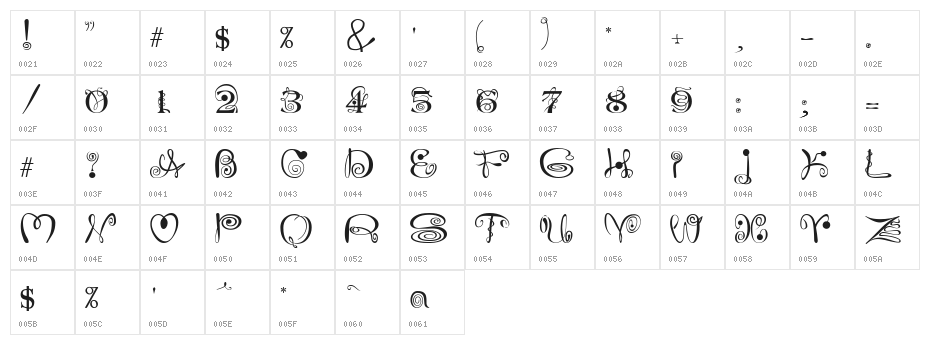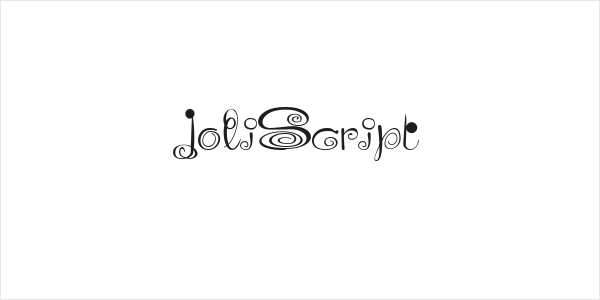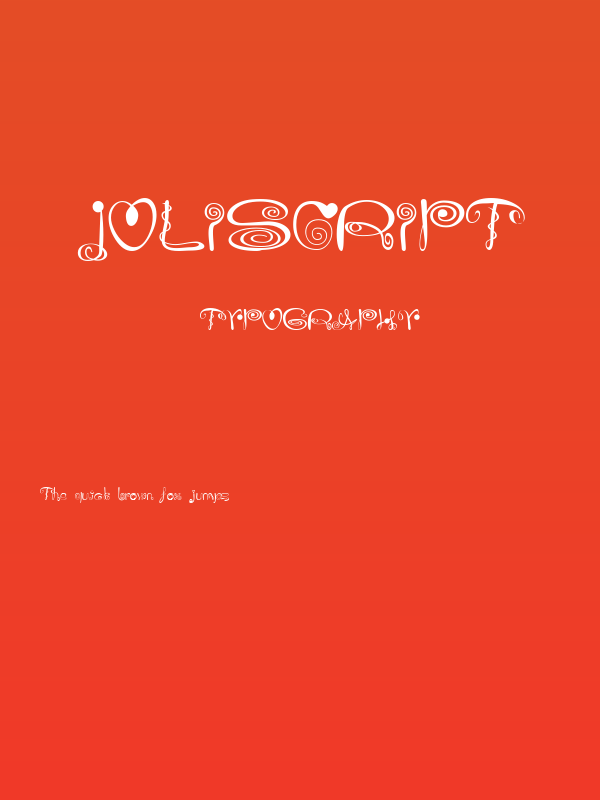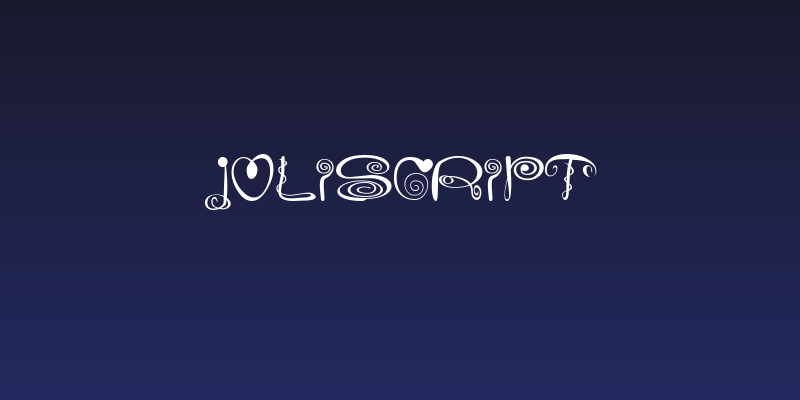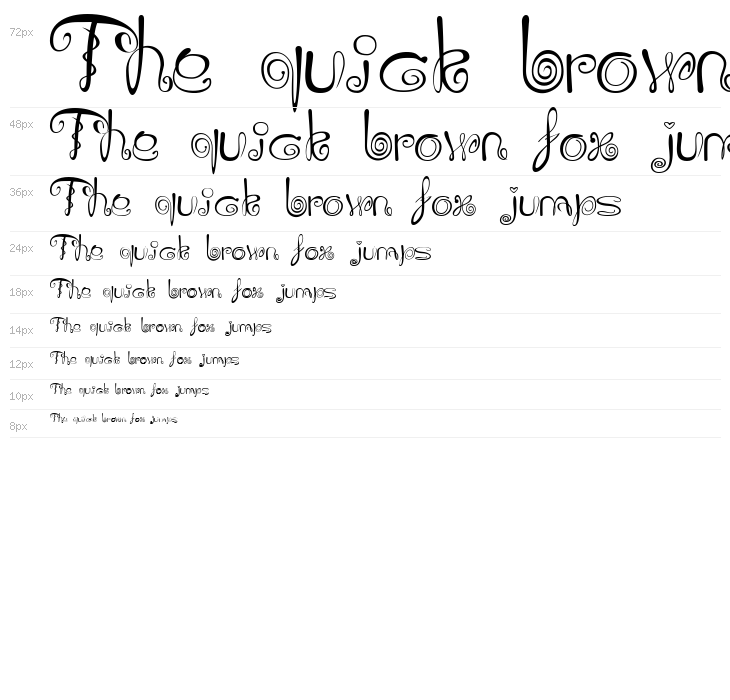
JoliScript Font
JoliScript Description
This font features a whimsical and playful design with a decorative flair. Each character is uniquely crafted with swirling and looping elements, giving it a lively and artistic appearance. The uppercase letters are bold and intricate, while the lowercase letters maintain a consistent style with added curls and embellishments. Numbers and special characters follow the same decorative theme, making the font suitable for creative and eye-catching designs. The overall style is both fun and elegant, perfect for projects that require a touch of creativity and uniqueness.
| Use Case | Logos, Invitations, Greeting Cards |
| Proposed Projects | Ideal for invitations, greeting cards, children's books, and creative branding projects. |